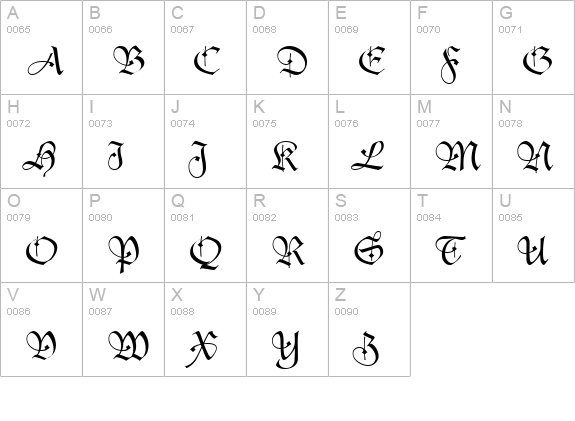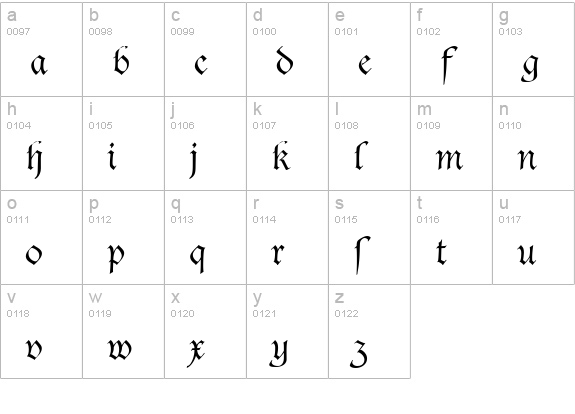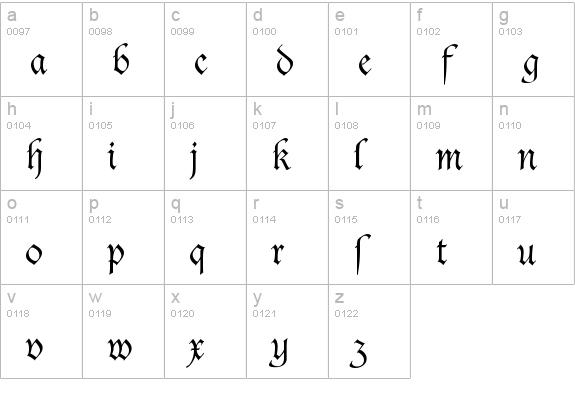
Tudor Script Light SSi Light Font Details
Tudor Script Light SSi Light is a refined, elegant variant in the Tudor typeface family \xE2\x80\x94 well suited to elegant body text, refined sub-headings, and luxury branding.